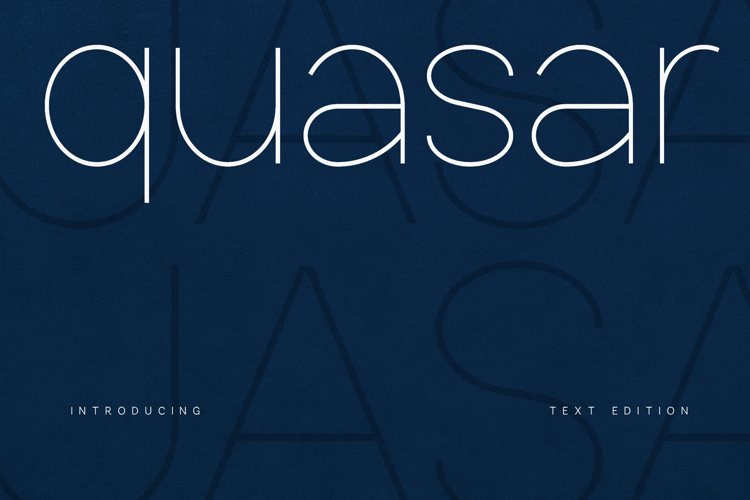
Quasar is an ultra-light geometric sans serif designed for clarity, elegance, and modern visual systems.
With clean monoline strokes and carefully balanced spacing, Quasar delivers a refined aesthetic ideal for editorial layouts, luxury branding, architecture studios, and contemporary digital design.
Its open structure and minimal weight create an airy, futuristic presence while maintaining excellent readability.
Perfect for logos, fashion campaigns, presentations, packaging, and premium identity systems.
Quasar = the most minimal and refined of the group.